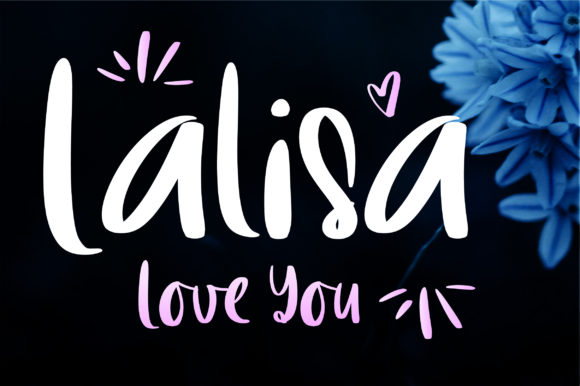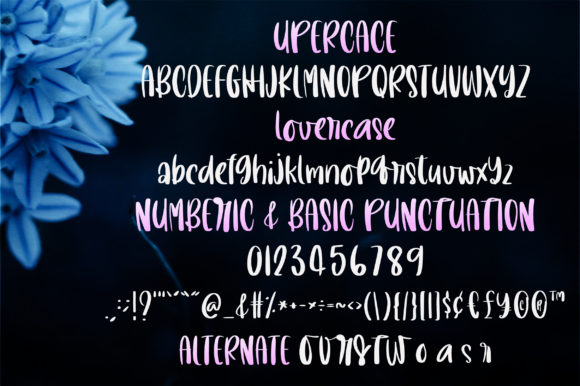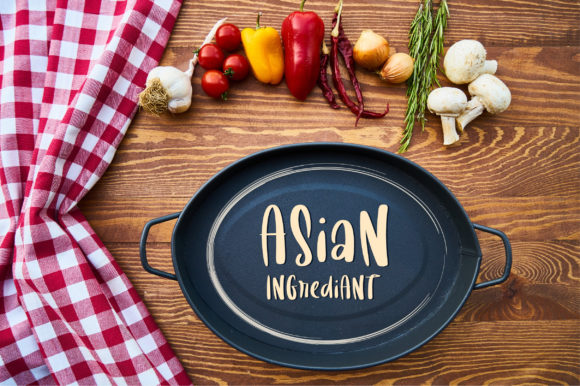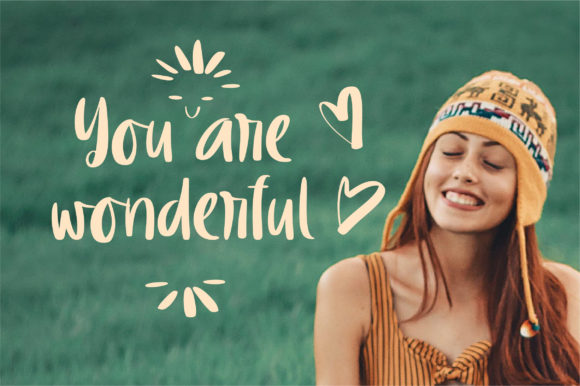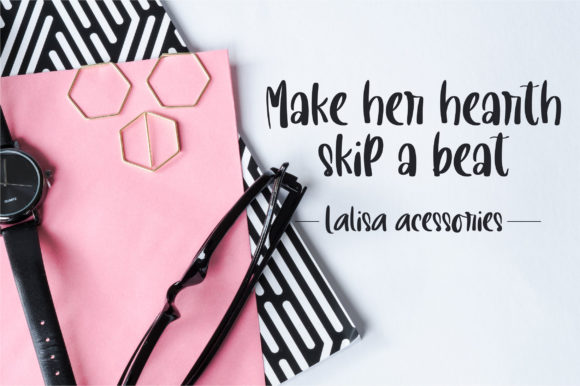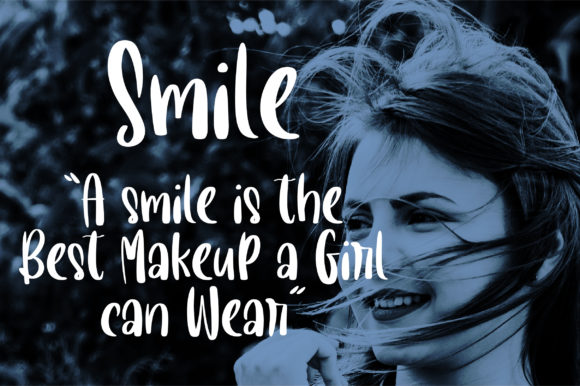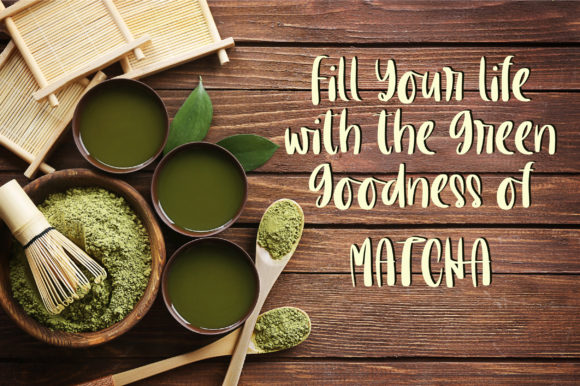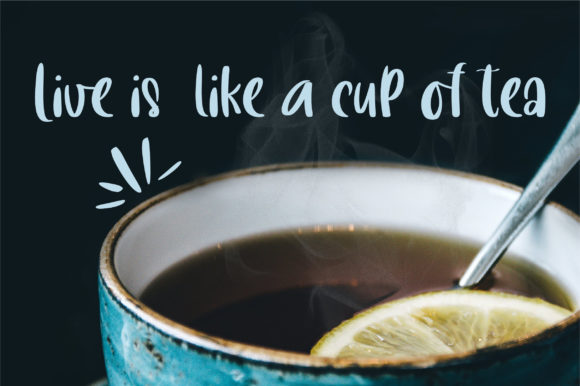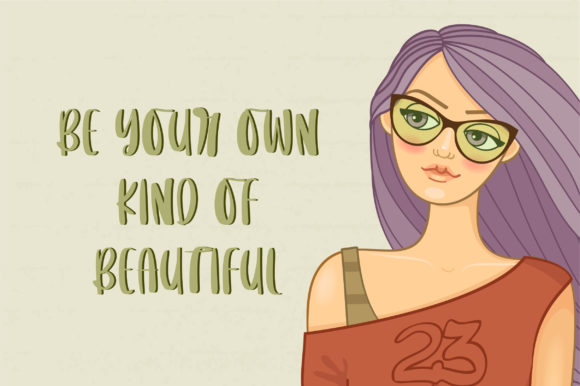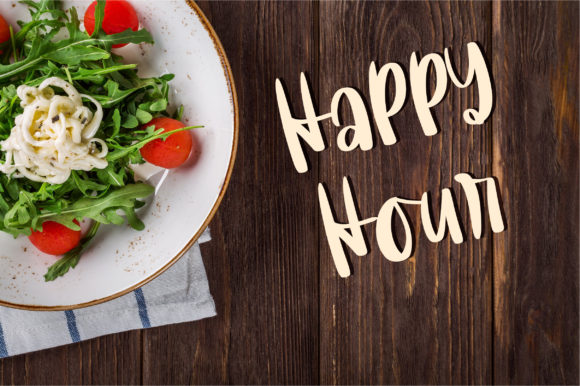
LalisaLoveYou Font
About LalisaLoveYou Font
LalisaLoveYou is a cheerful and friendly handwritten font. It will elevate a wide range of design projects to the highest level, be it branding, headings, wedding designs, invitations, signatures, logos, labels, and much more!